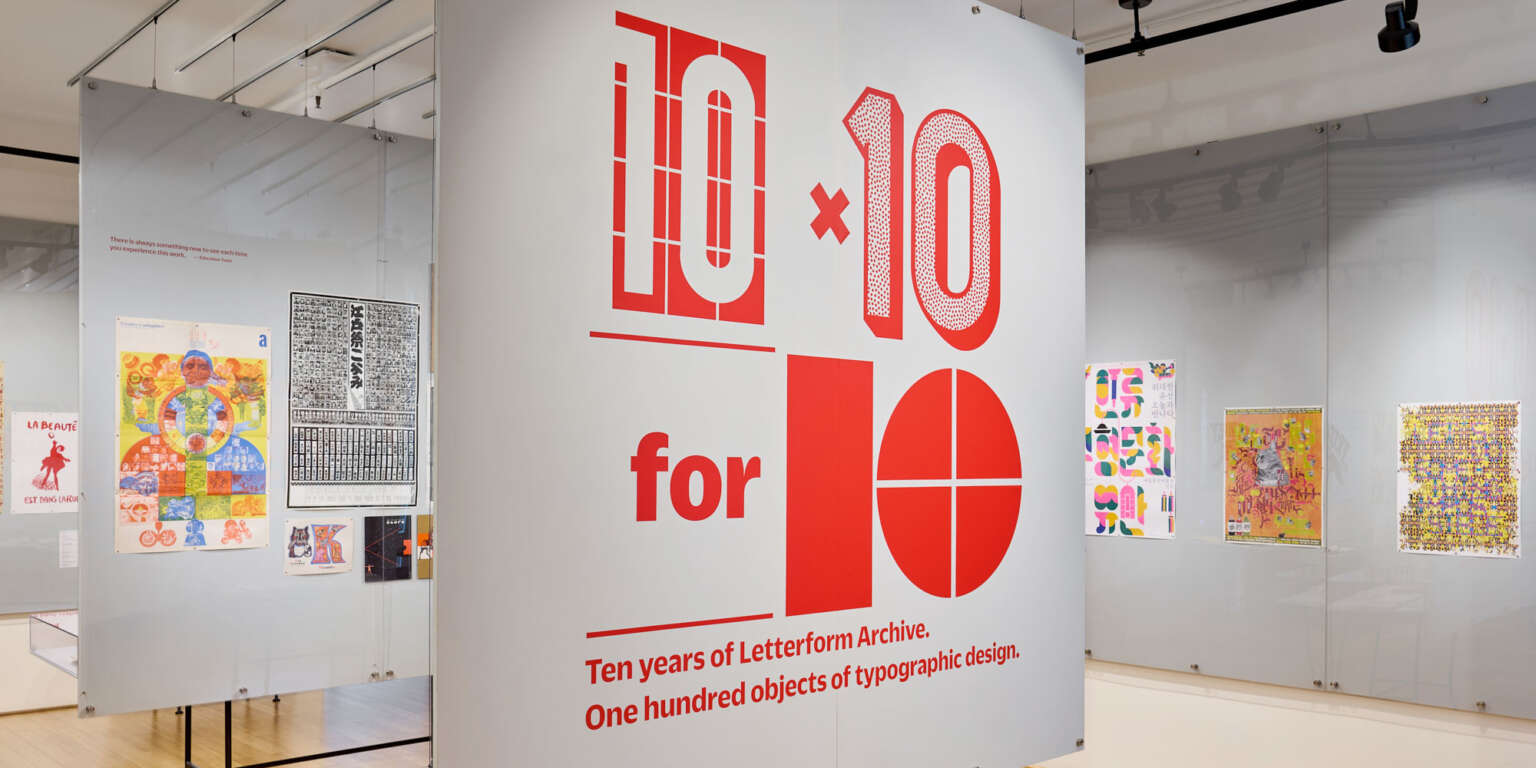
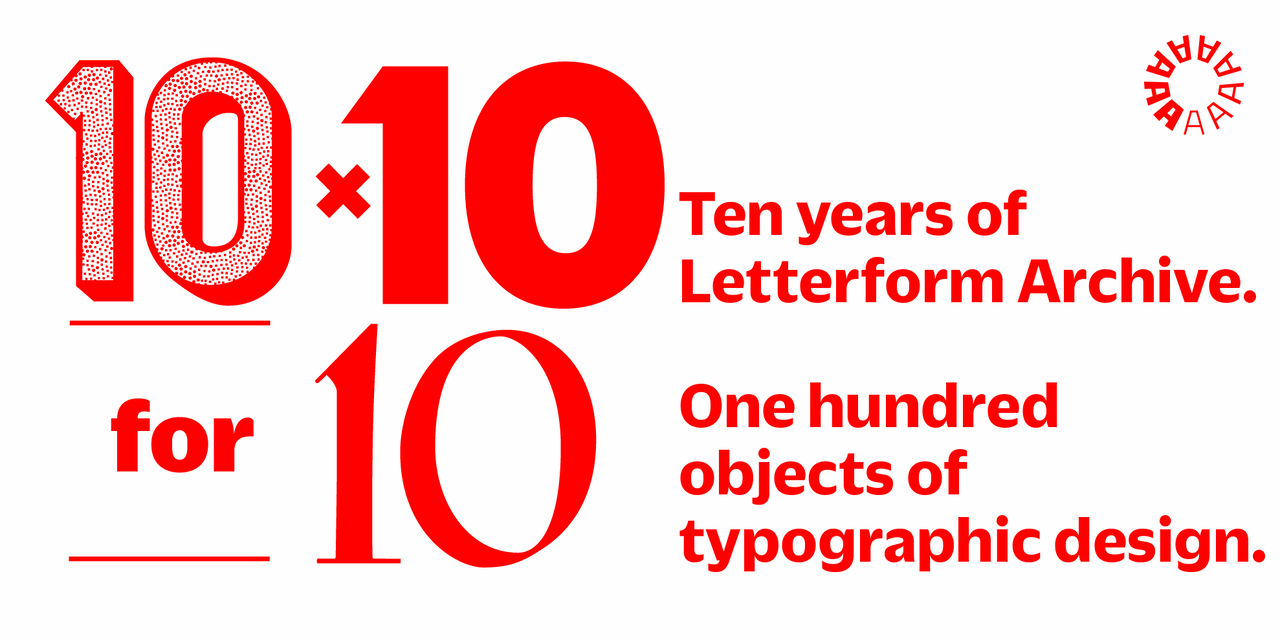
Exhibition Tour: 10 × 10 for 10: Ten years of Letterform Archive. One hundred objects of typographic design.
Hear the stories behind some of our favorite objects of design during this in-person, curator-led tour.
To celebrate our 10th anniversary, we filled our jewel-box gallery with 100 staff picks. Get a glimpse into every corner of the Archive through the lens of the 10 teams who steward the collection. Traverse centuries of graphic art, from a cuneiform tablet to contemporary artists’ books, from icons of modernist typography to everyday ephemera. Never before has such a wide range of the Archive’s collection been viewable in one room.